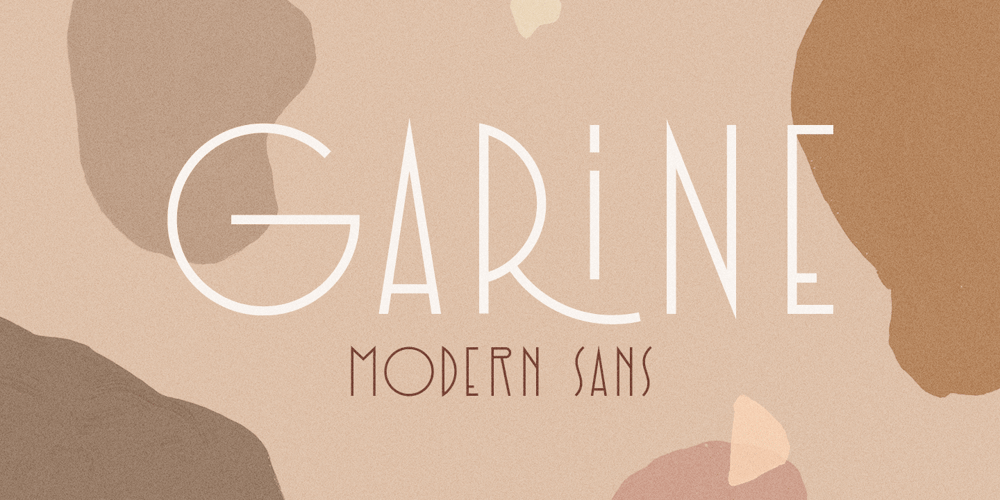
Garine
Garine font
Garine Font Family was designed by Anton Didenko and published by Kavoon. Garine contains 1 styles and family package options. Introducing our new typeface, Garine – a contemporary, Art Deco-inspired display typeface full of character, quirky ligatures and glyphs to keep your designs fresh.This is a modern Sans font that we recommend using in the following types of work; magazines (titles and layouts), logos and branding, invitations, quotes, blog headers, posters, and advertising.Language Support: Afrikaans, Albanian, Catalan, Danish, Dutch, English, French, German, Italian Norwegian, Portuguese, Spanish, Swedish and Zulu.What’s included: Uppercase and lowercase glyphs Punctuation Numbers Multilingual support Unique ligatures glyphs